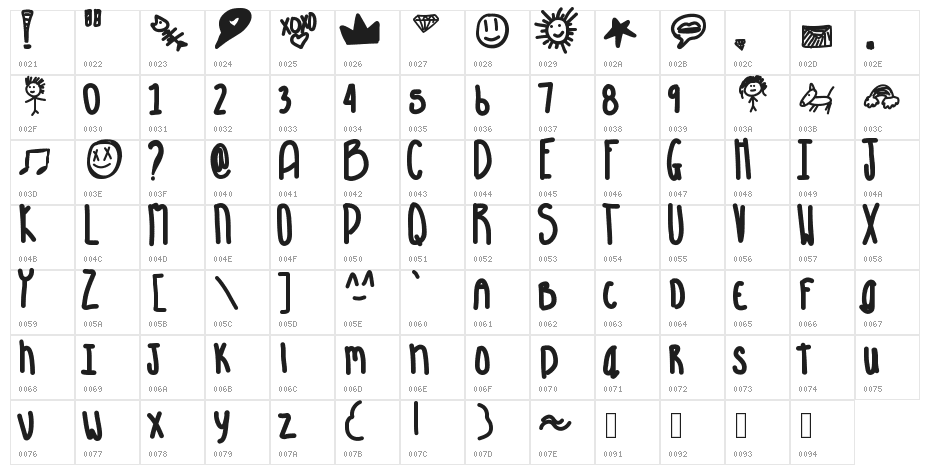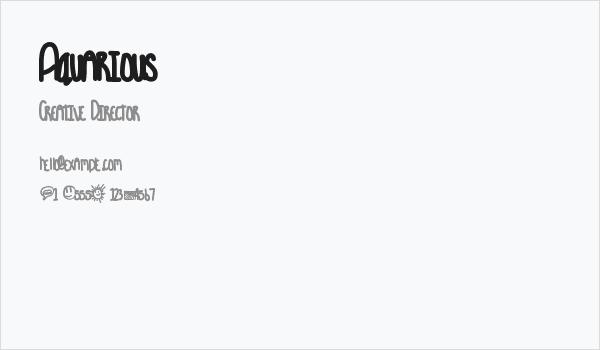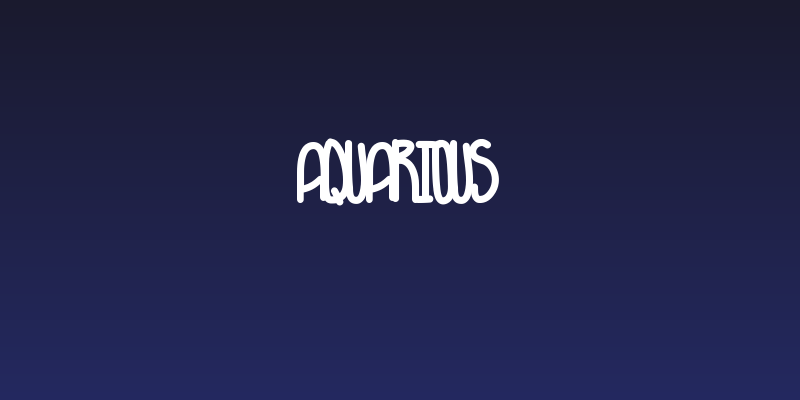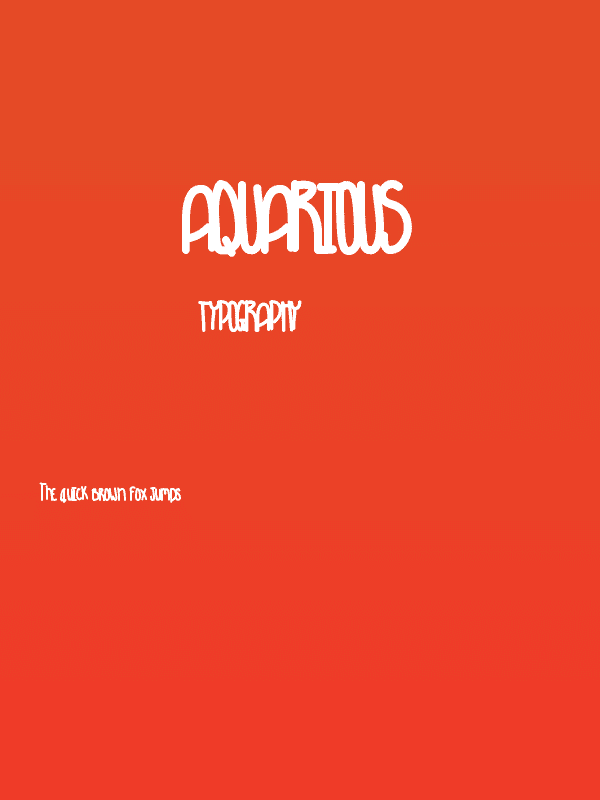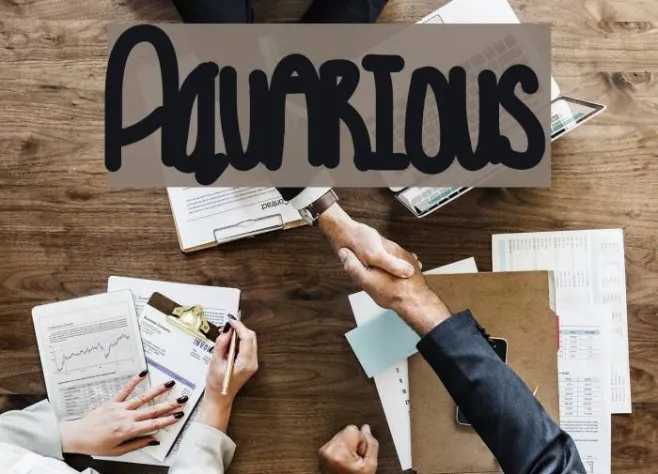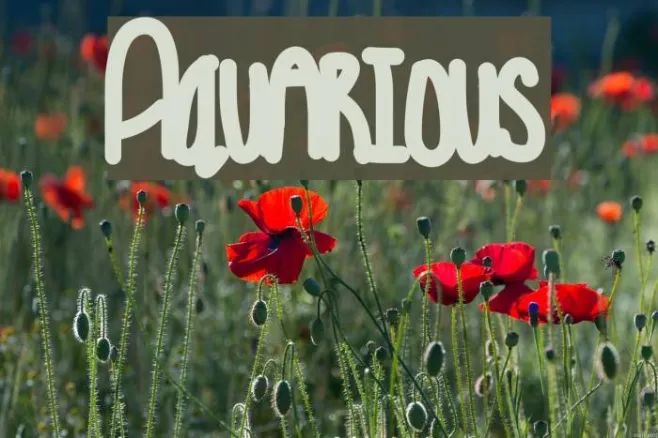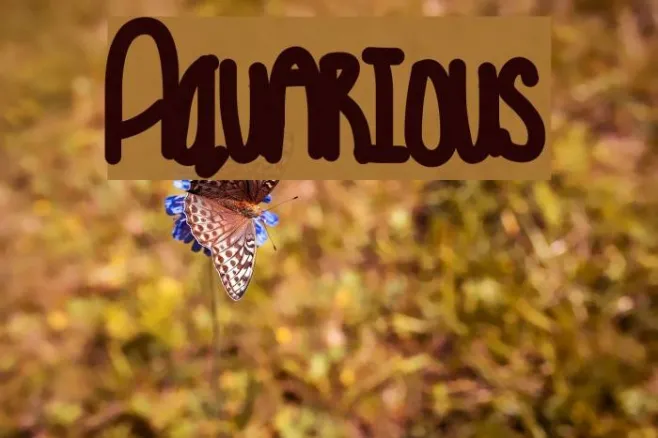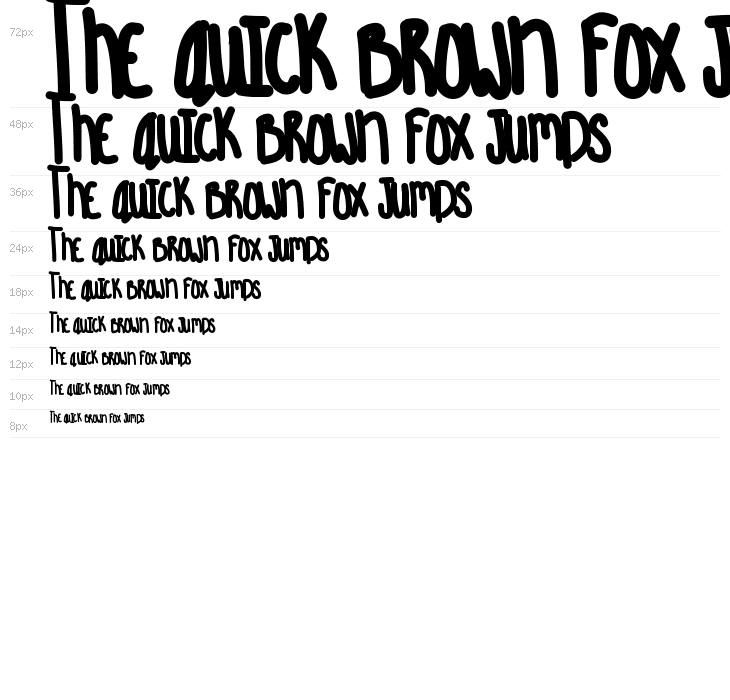
Aquarious Font
Aquarious Description
This font features a playful and bold handwritten style, characterized by thick strokes and a casual, informal appearance. The letters are rounded and slightly irregular, giving it a whimsical and artistic feel. The uppercase and lowercase letters maintain a consistent style, while the numbers and special characters add to its quirky charm. The font's unique personality makes it stand out, ideal for creative and fun projects.
AQUARIOUS UPPERCASE
AQUARIOUS LOWERCASE
AQUARIOUS OTHER CHARS
| Proposed Projects | Perfect for children's books, playful branding, greeting cards, and creative posters. |